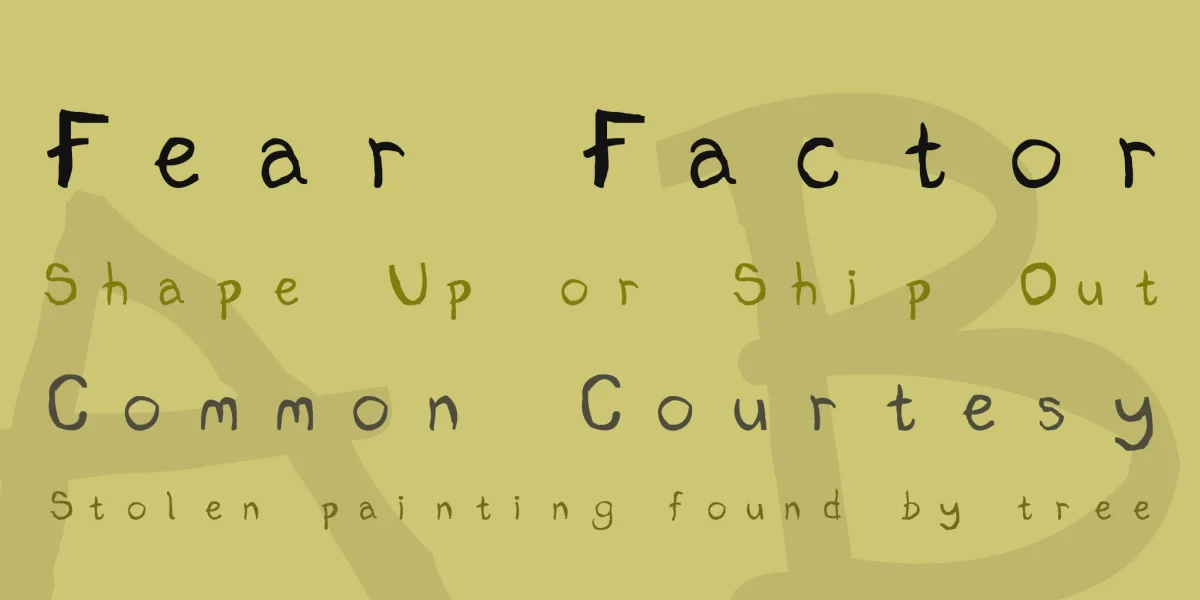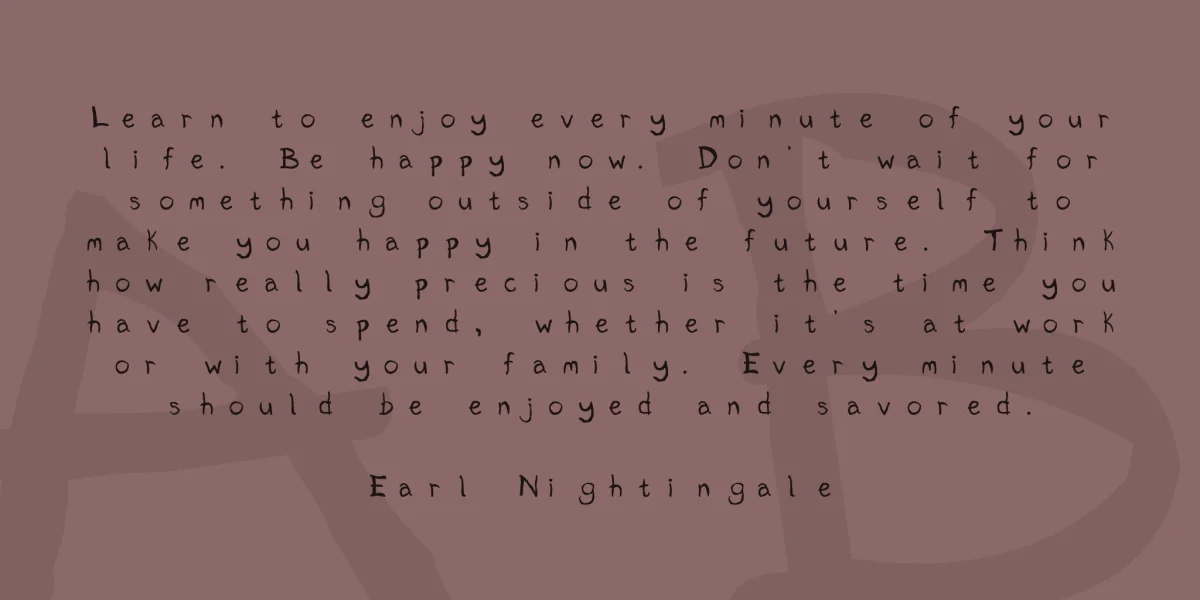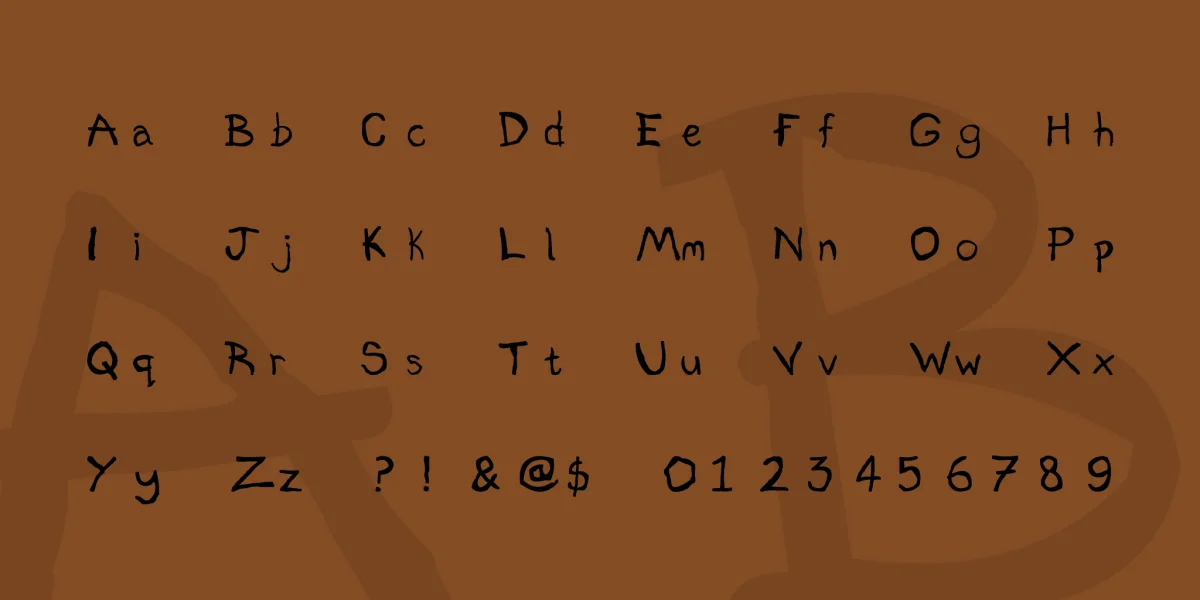
grungy, handwritten and underestimable - the original spadefont download and enjoy - installation instructions can be found in the readme file. this font has got the glyphs for all caps and minuscule letters, all numbers and some commonly used symbols - ,;.:+"@-*#%&/()?!][´'^`$£ to be exact.